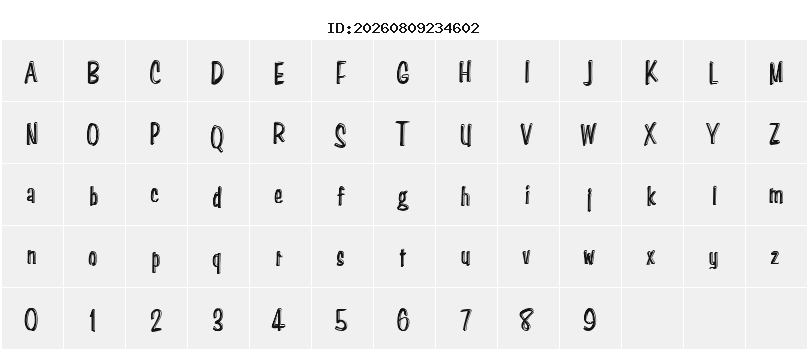
• Font Name: Paghetti Condensed
Paghetti Condensed.ttf is a modern, elegant sans-serif font designed for ultimate readability and visual harmony. Perfect for branding, headlines, web design, and print materials.